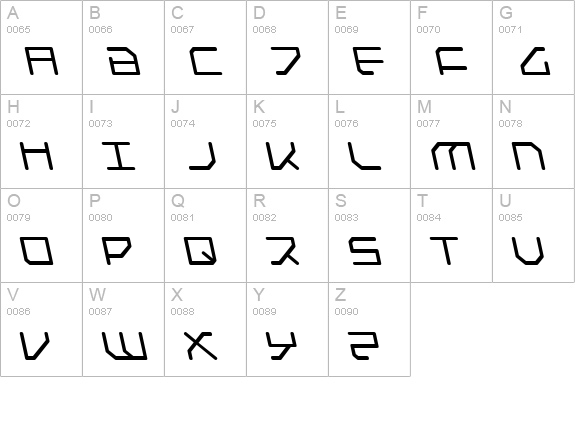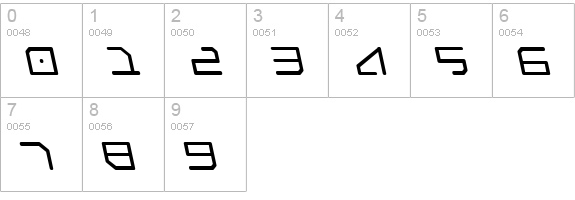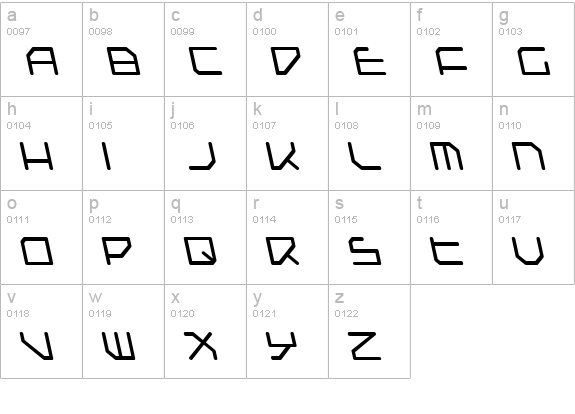
Federapolis Leftalic is a sleek and modern font that exudes sophistication and elegance. Its dynamic slanted design adds a touch of creativity to any project, making it perfect for branding, advertising, and editorial purposes. The clean lines and unique letterforms of Federapolis Leftalic make it stand out from the crowd, while still maintaining a sense of professionalism. What sets Federapolis Leftalic apart is not just its striking appearance, but also the fact that it is available for free download at FontsMarket.com. This means that you can easily access this high-quality font without any cost, making it a valuable asset for designers and creatives looking to elevate their work. Whether you're working on a digital design project or a printed publication, Federapolis Leftalic is sure to make a bold statement and leave a lasting impression. Download it today and take your designs to the next level!